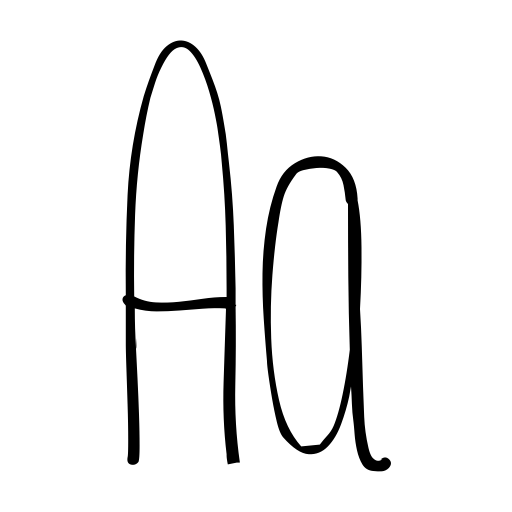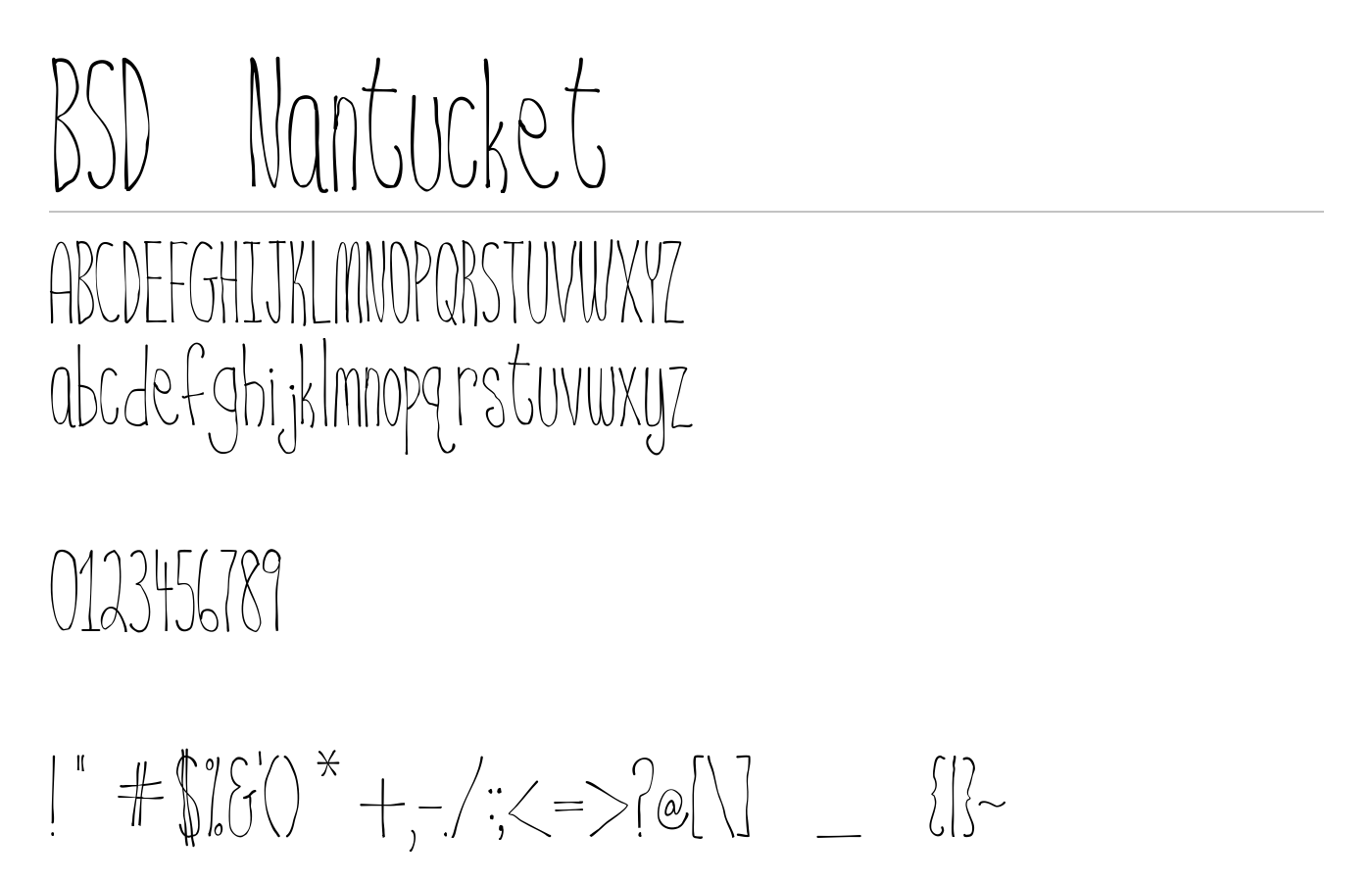
BSD Nantucket is a tall, narrow, and playful handwritten font with a whimsical charm. Its thin strokes and irregular letterforms give it an informal, quirky personality that works well for creative, casual designs like greeting cards, children’s products, or unique branding. This font’s airy spacing and distinctive shapes make it ideal for headlines or decorative text that needs a lighthearted, artistic touch.
BSD Nantucket Font